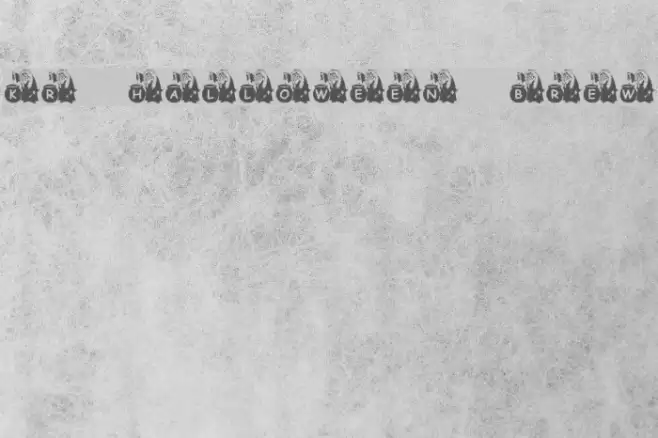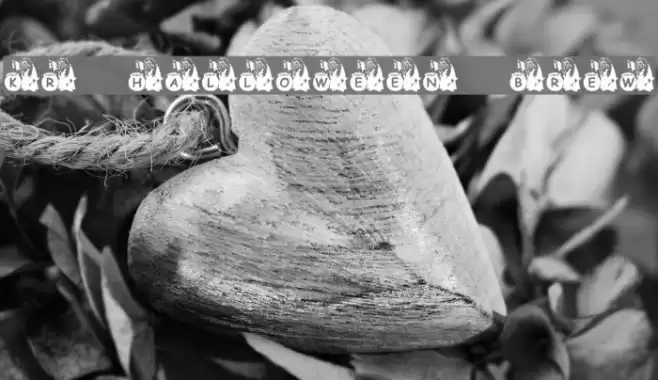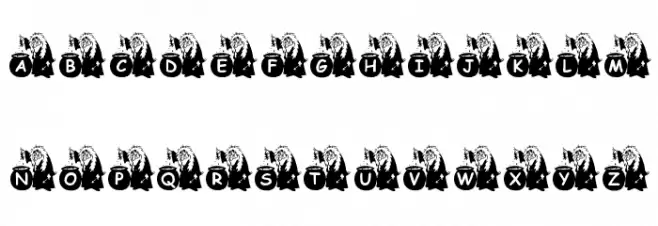
KR Halloween Brew Font
KR Halloween Brew Description
This font features a unique and playful design, incorporating Halloween-themed elements into each character. Each letter is encased within a circular shape, with a witch's silhouette perched on top, adding a whimsical and spooky touch. The letters themselves are bold and clear, ensuring readability despite the decorative elements. The overall style is highly thematic, making it perfect for seasonal or holiday projects. The font's distinctive appearance makes it stand out, ideal for capturing attention in various creative applications.
A Halloween-themed decorative font with witch silhouettes and bold letters from Uncategorized fonts.
- Proposed Projects: Ideal for Halloween invitations, party flyers, themed posters, and seasonal greeting cards.